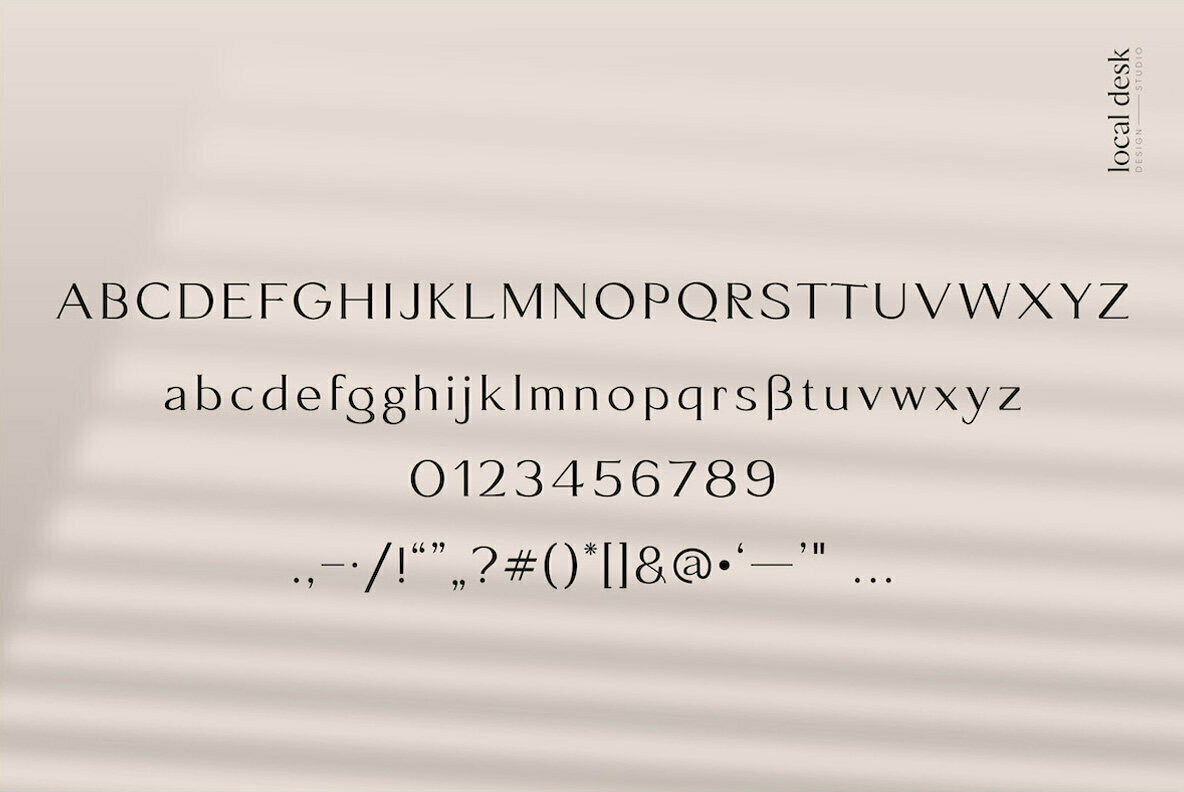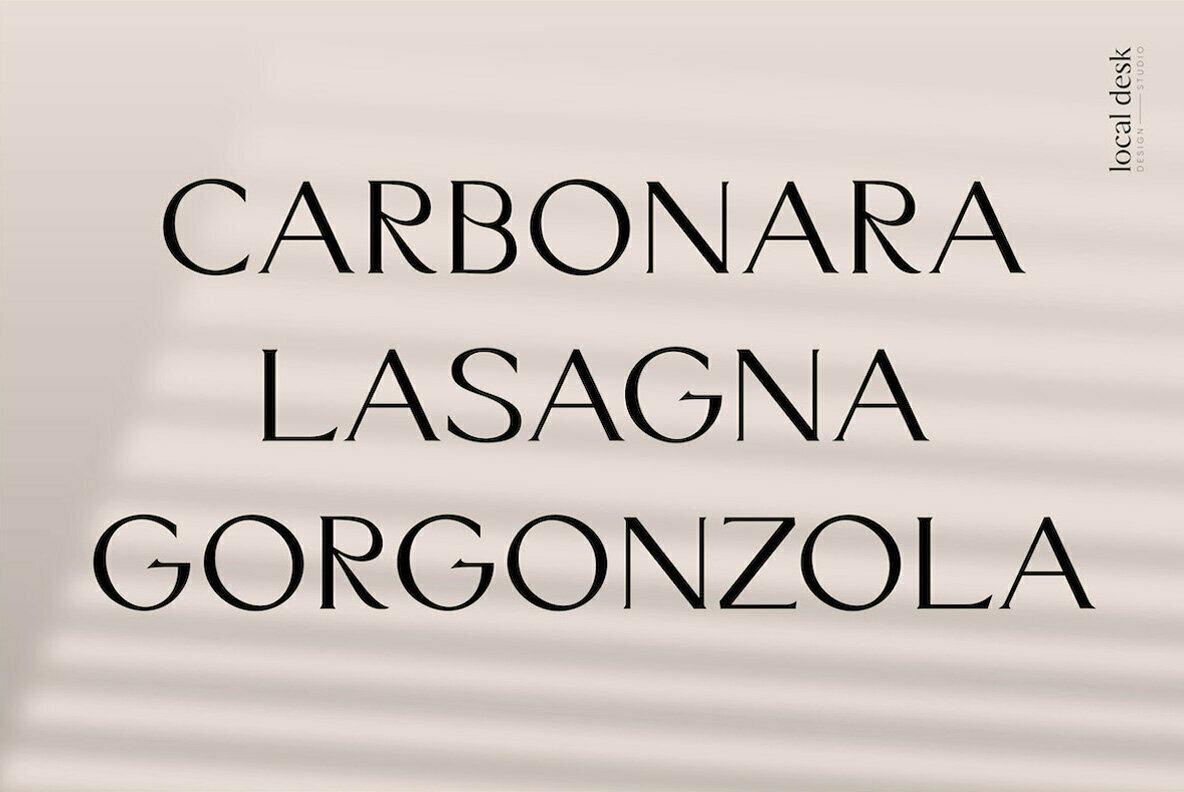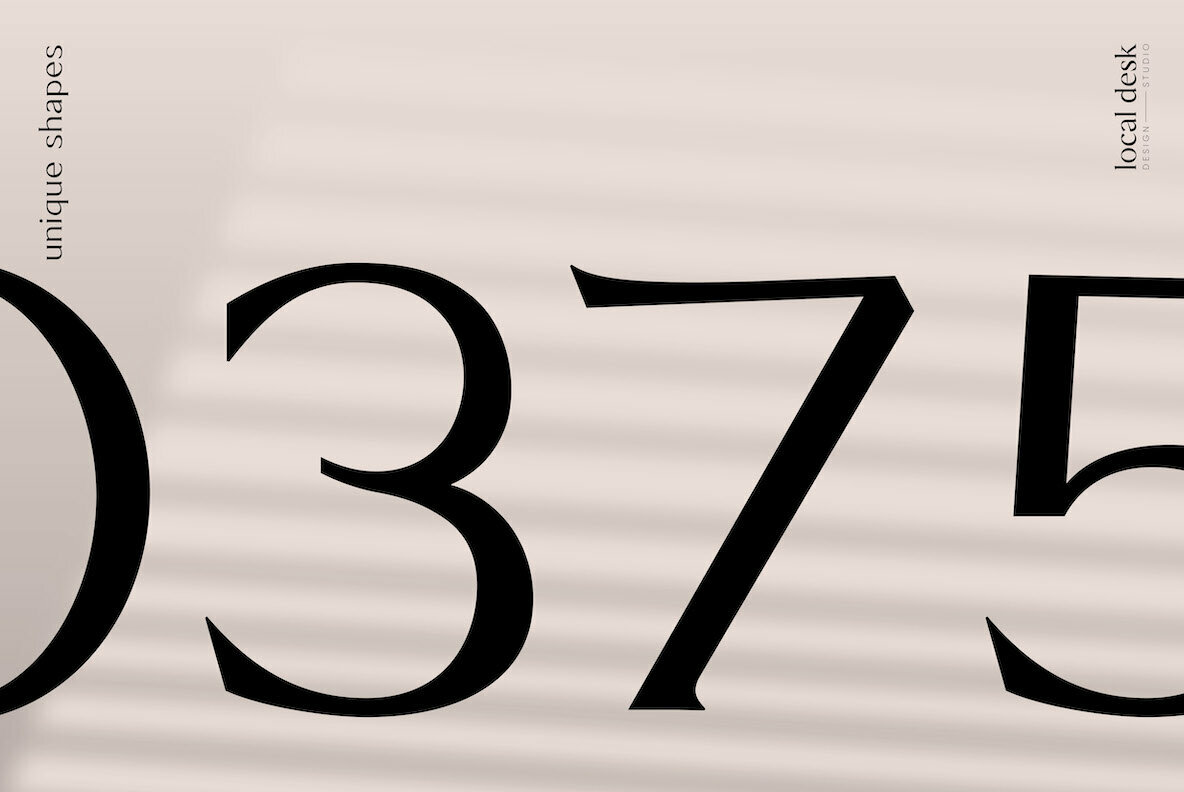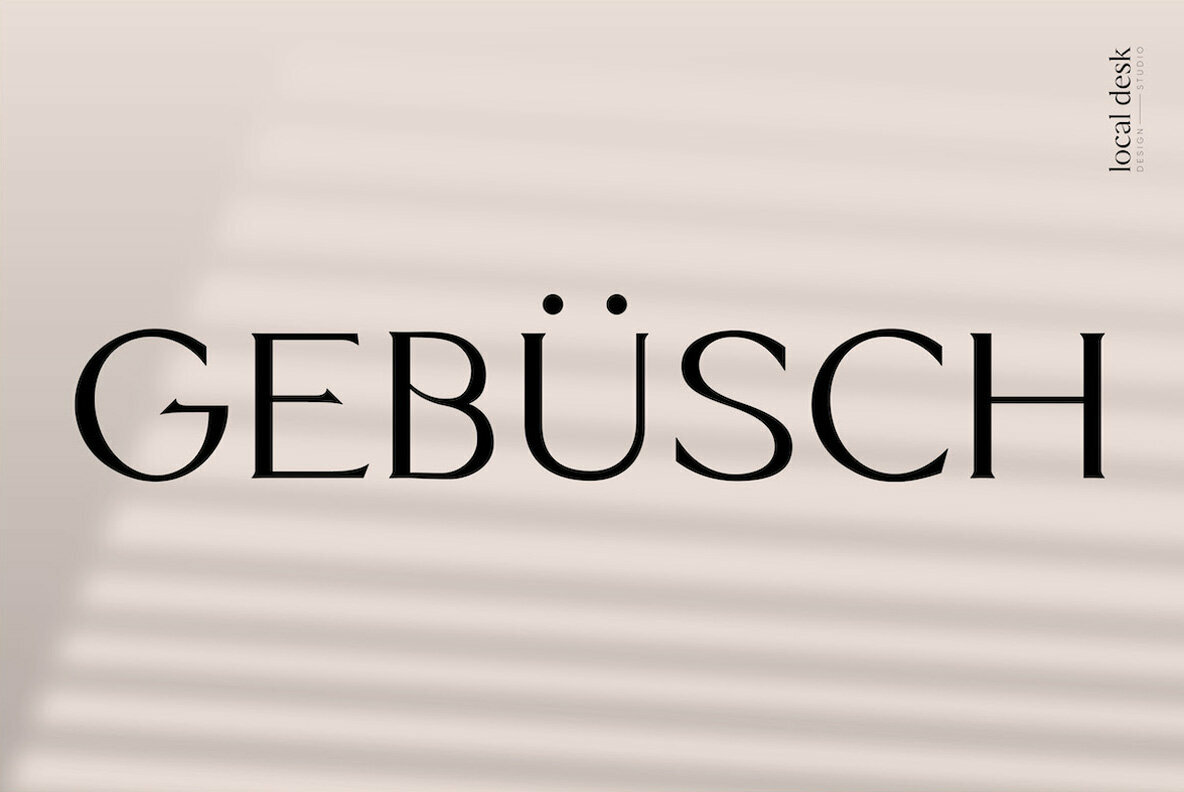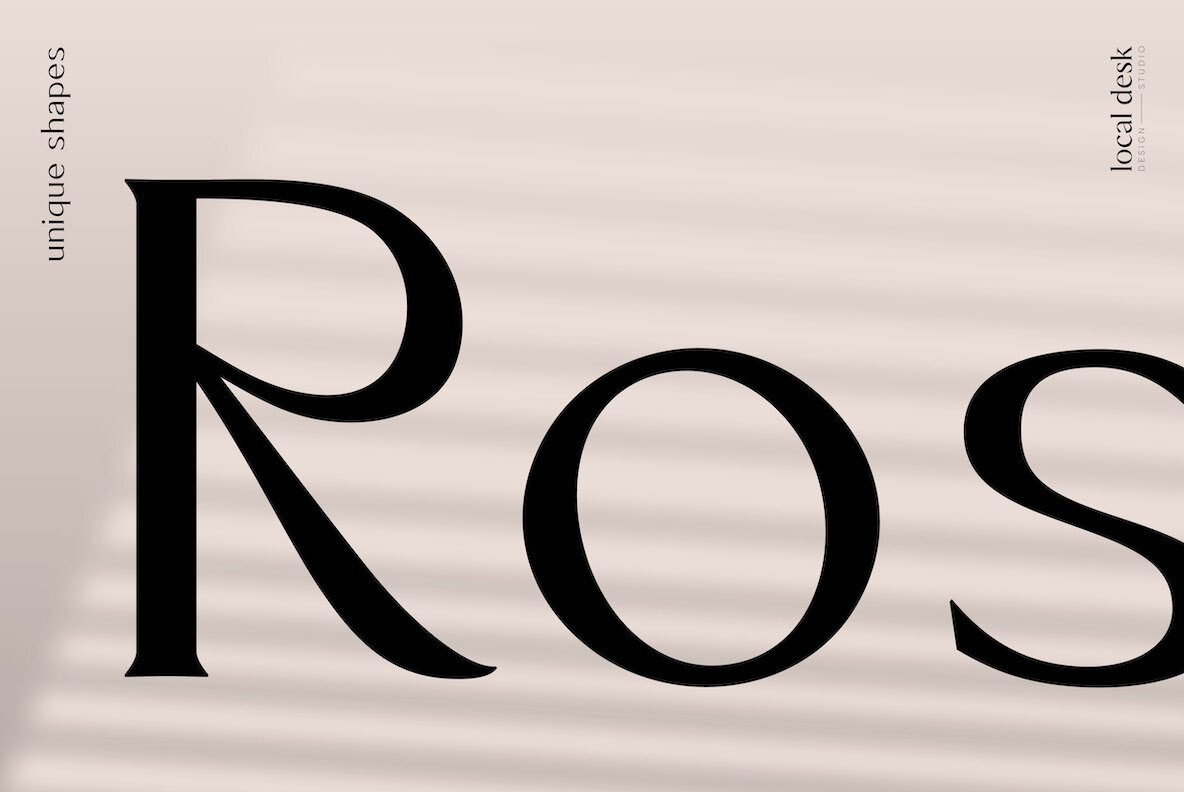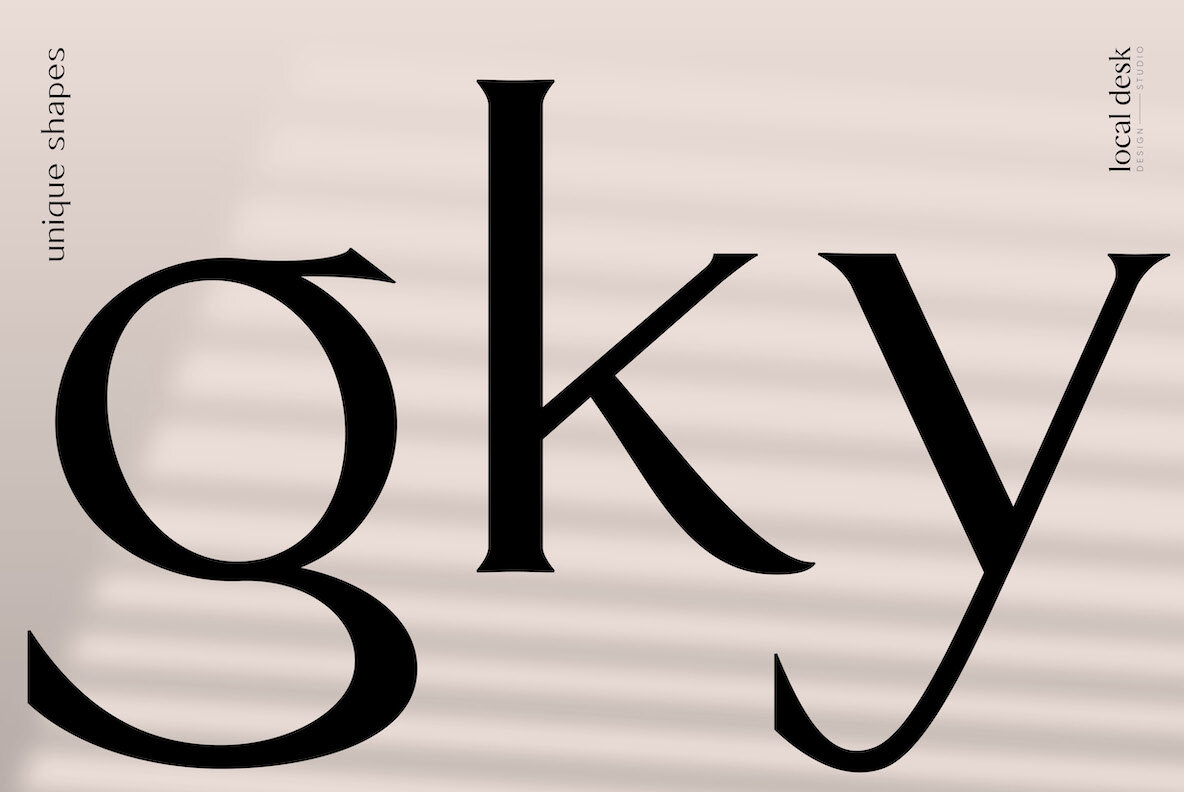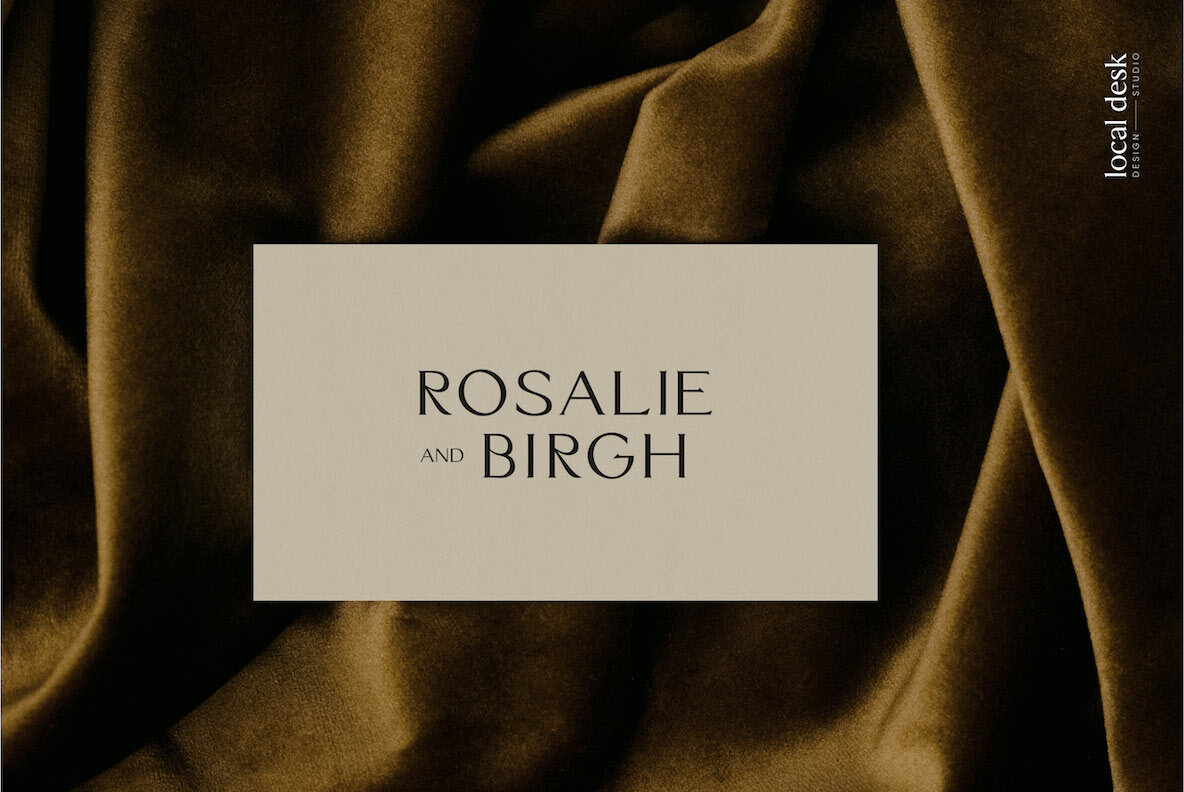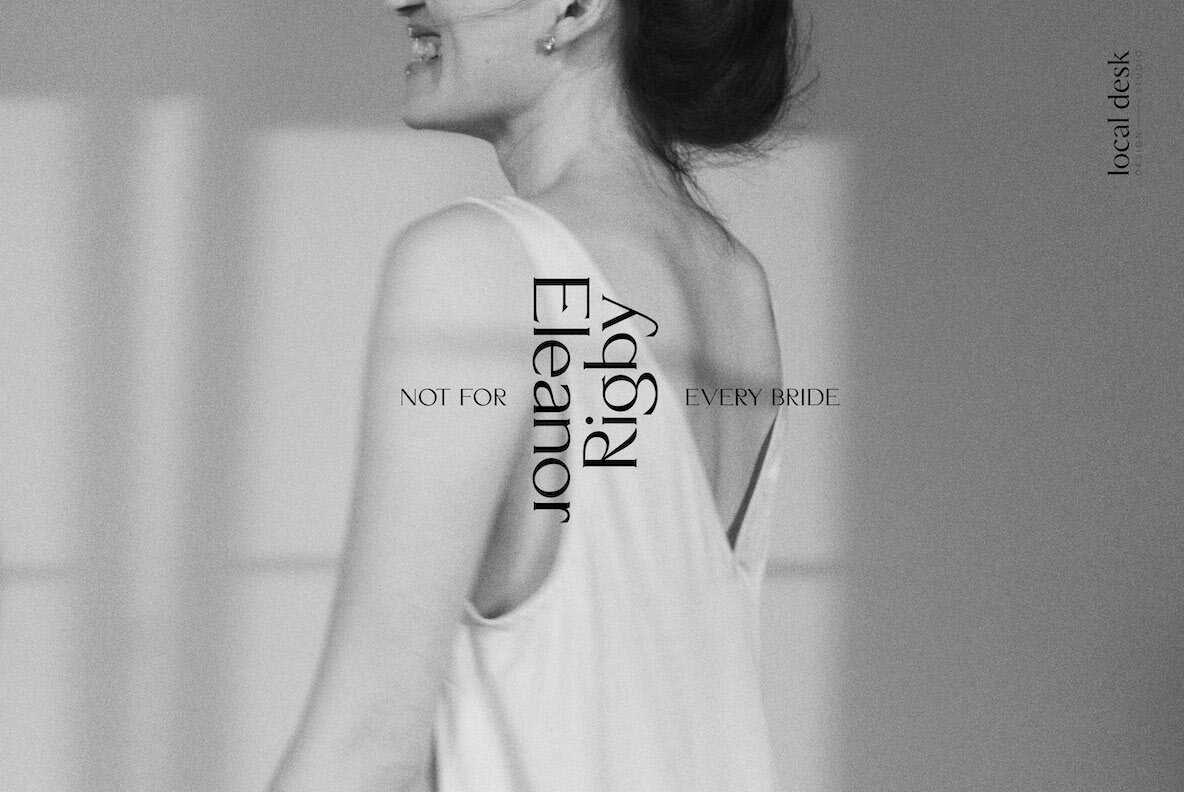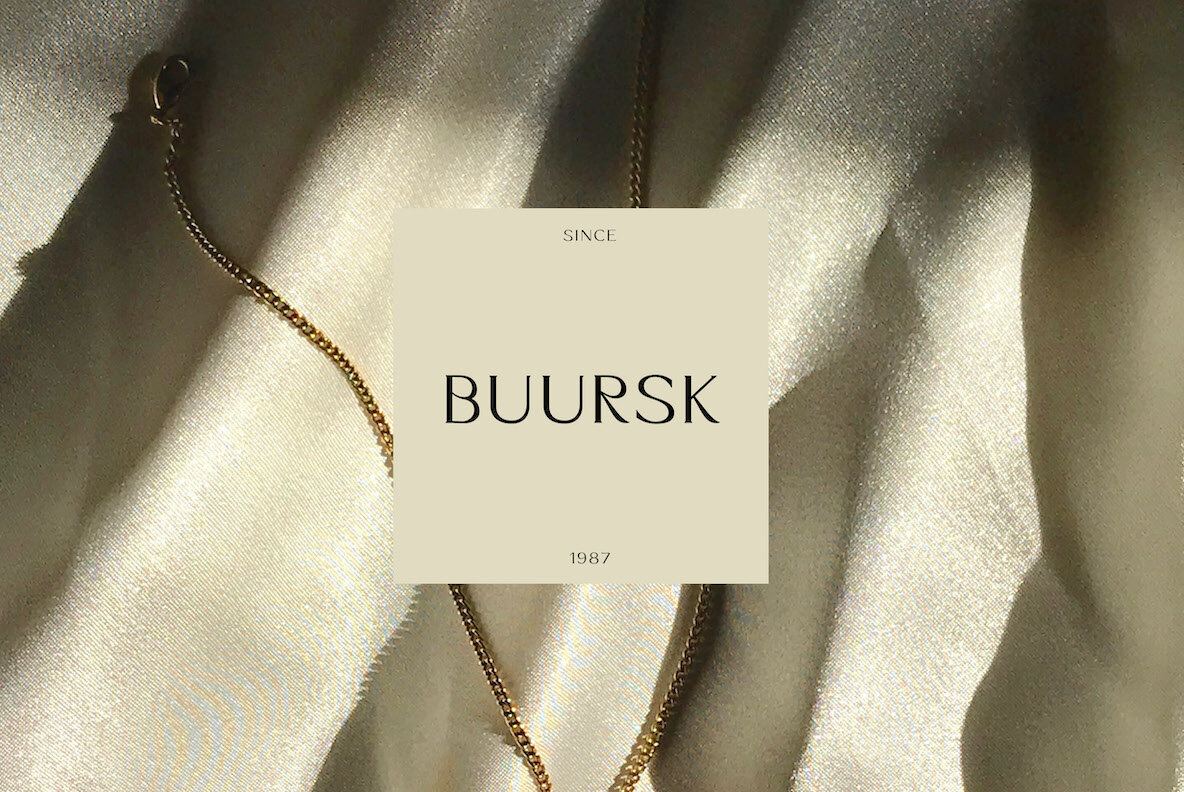
Rosaly Font
Rosaly Regular
Rosaly is a distinctive, elegant serif typeface inspired by unusual & organic shapes. Unique curves and contrasting lines create this memorable font with a fancy & luxurious vibe. Rosaly is perfectly suited for designing modern, high end brands, contemporary packaging, unique quotes, timeless websites and so much more!